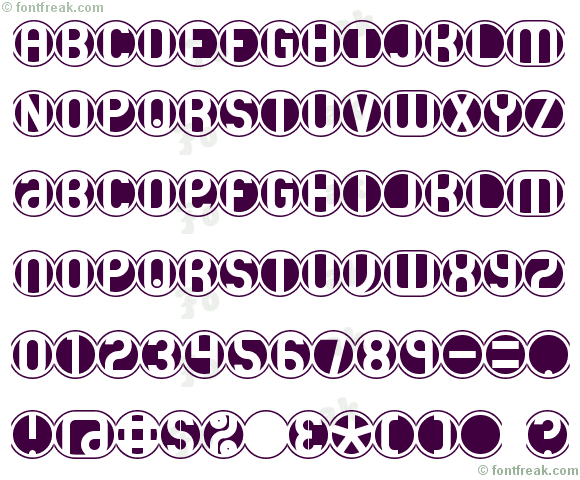
Double Bogey by Ænigma Fonts is a distinctive display font that beautifully blends playful elegance with a touch of nostalgia. This freeware typeface boasts a unique character that makes it perfect for those seeking to make a bold statement in their designs. The font features a medium stroke weight, with a slight contrast that adds a sense of dynamism to each letter. Its wide spacing enhances readability while maintaining a stylish flair, making it suitable for various creative applications.
Visually, Double Bogey showcases rounded edges and whimsical curves that evoke a sense of fun and approachability. The playful nature of the font is complemented by subtle decorative elements that give it an artistic touch, making it stand out in any context. This versatile typeface is ideal for a variety of use cases. Graphic designers can utilize it for eye-catching movie posters or vibrant event flyers. Small business owners might find it perfect for restaurant menus or promotional materials, while content creators can use it to add a unique flair to their social media graphics or blog headers.
Targeting a diverse audience, Double Bogey is particularly appealing to graphic designers, small business owners, and content creators who are looking to inject personality into their projects. Its free availability makes it an attractive option for those on a budget yet wanting high-quality typography.
Overall, the Double Bogey font free download is an exceptional choice for anyone aiming to elevate their design work with a font that is both charming and functional. Its distinctive style and versatility ensure it will make a memorable impression, whether used in print or digital formats. Embrace the fun and creativity of Double Bogey, and let your designs shine with this remarkable typeface.